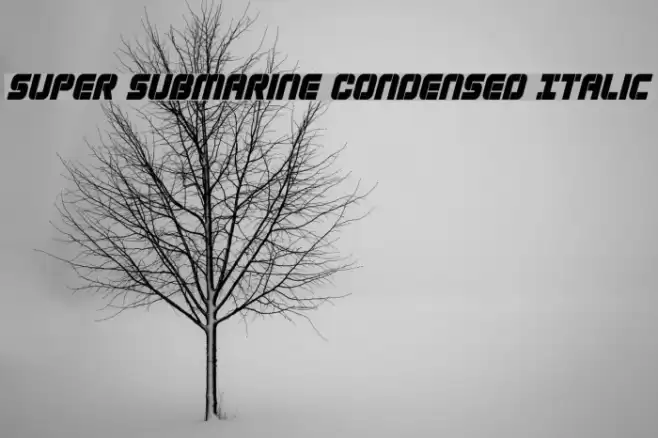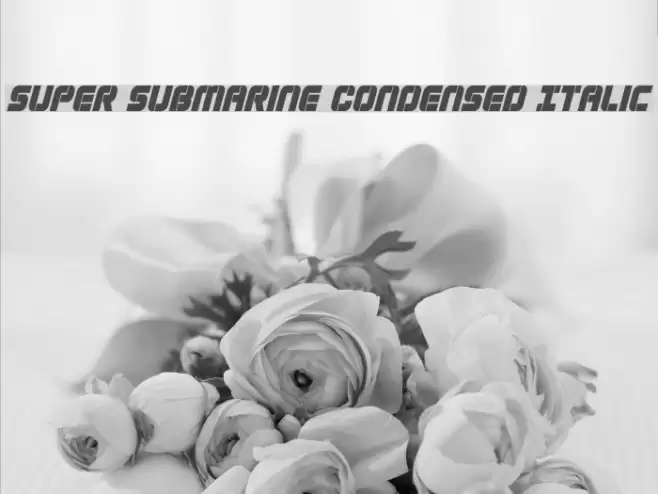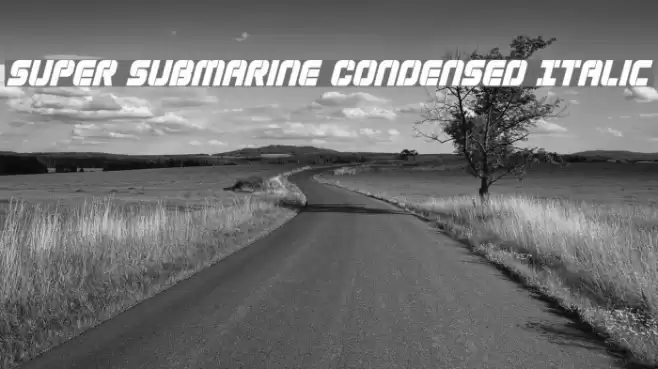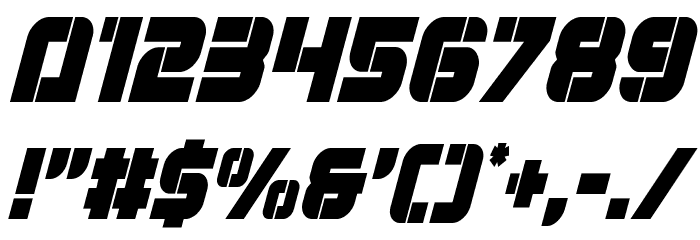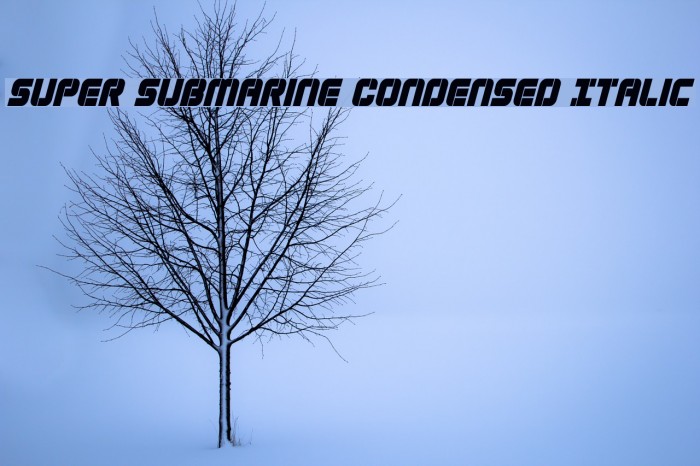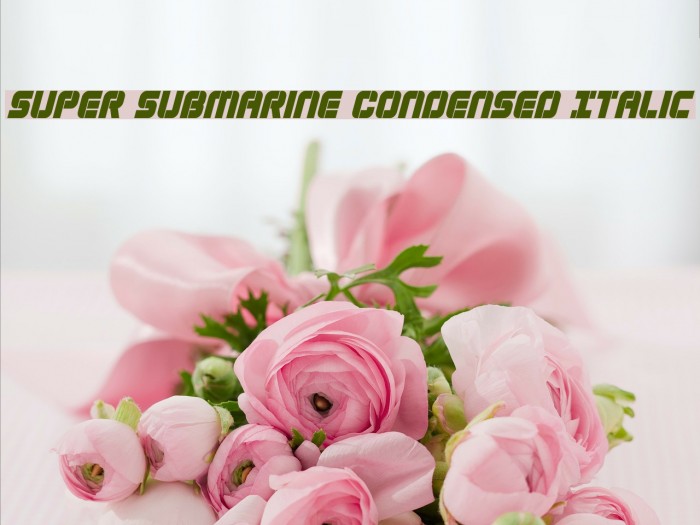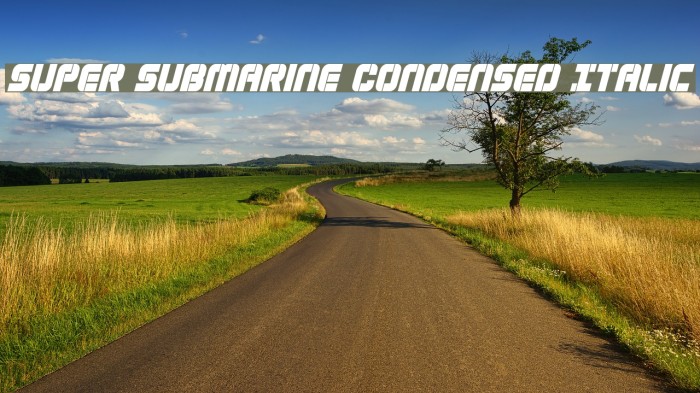
Super Submarine Condensed Italic Font
Super Submarine Condensed Italic Description
This font features a bold and dynamic style with a condensed and italicized form, creating a sense of movement and urgency. The characters are designed with sharp angles and a futuristic aesthetic, making them stand out with a strong visual impact. The uppercase letters are uniform in height, while the numbers and special characters maintain the same boldness and angular design. The overall look is modern and sleek, suitable for projects that require a striking and energetic typeface.
A bold, condensed, and italicized font with a futuristic and dynamic style from Uncategorized fonts.
- Proposed Projects: Ideal for sports branding, action movie posters, video game titles, and dynamic advertising campaigns.
- Character Spacing: Tight